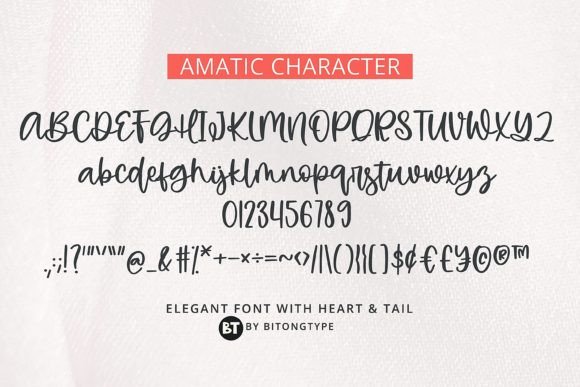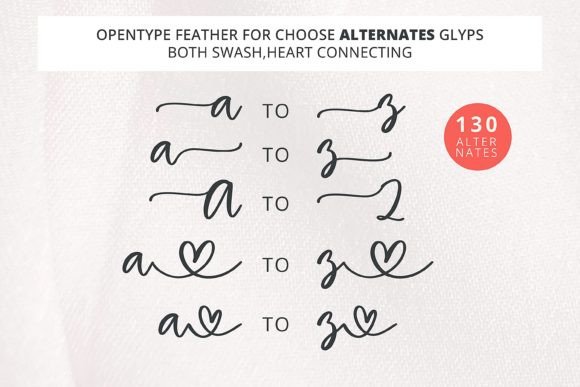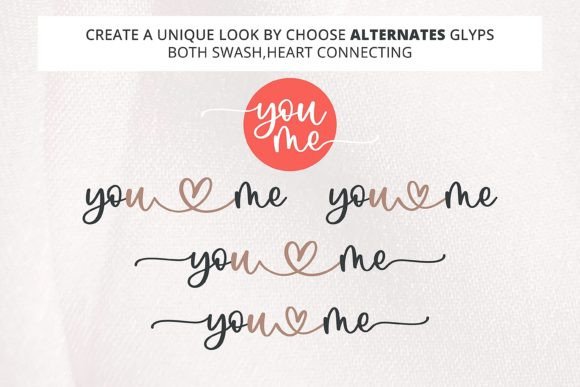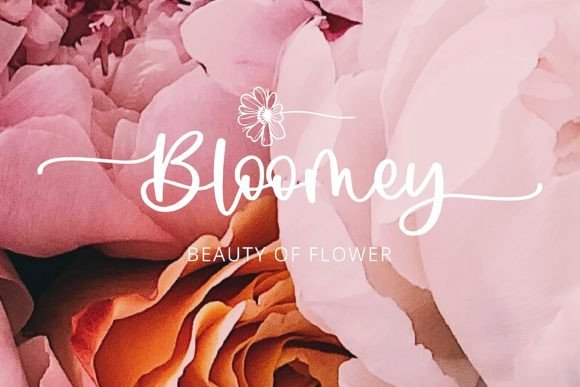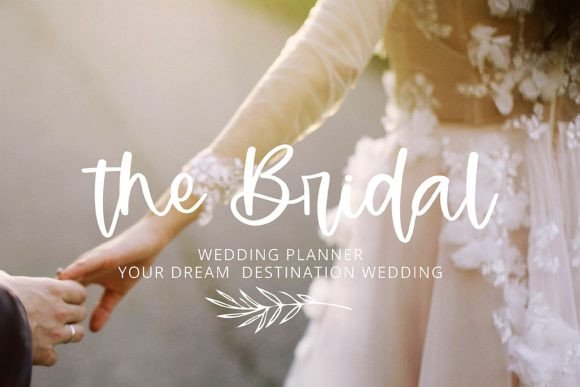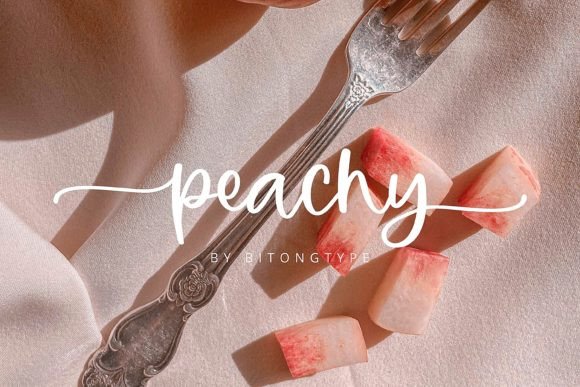
Unleashing Creativity with the Perfect Font
Do you remember that moment when you finally found the perfect font to bring your design project to life? For many of us, it’s a moment of pure joy and excitement, like stumbling upon a hidden treasure in a digital library. And for designers who are always on the lookout for the next big thing, we’re excited to introduce you to the Amatic Font – a gorgeous handwritten font that’s sure to captivate your audience.
The Amatic Font is a versatile and beautiful addition to any design project. Whether you’re creating wedding invitations, beautiful stationery art, or eye-catching social media posts, this font is sure to add a touch of elegance and sophistication. With its PUA encoded feature, accessing all the glyphs and swashes is a breeze, making it a valuable tool for designers who want to take their work to the next level.
Amatic Font Key Features
- Font Family: Amatic SC, Amatic LT
- Unique Characteristics: Handwritten, cursive, and script font with a vintage touch, ideal for creative and artistic designs
Designer Review: Amatic Font
Amatic font is a clean, high-quality, and elegant font that shines in ✨ readability. Its unique blend of modern and traditional elements creates a distinctive look that works well for various projects. Its legibility is excellent, making it perfect for large-scale headings and body text.
The font’s versatility and wide range of applications are significant advantages. It can be used in digital and print media, from book covers to signage, and even for web design. Amatic font also comes in multiple weights and styles, offering a lot of flexibility for designers.
- ✨ Excellent readability
- ✨ Unique blend of modern and traditional elements
- ✨ Wide range of applications
- ✨ Multiple weights and styles
- ⚠️ Limited expressiveness, may not be suitable for complex or creative projects
- ⚠️ May not be the best choice for projects requiring a bold or edgy look
Overall, Amatic font is a solid choice for designers looking for a clean, elegant, and readable font. While it may not be the best fit for every project, its versatility and high quality make it a great addition to any font collection.
Tips for Getting the Most Out of Amatic Font
Combine Amatic with bold and distressed textures for a vintage look. Use it for headings and titles to create a bold statement. Experiment with different font sizes and weights to create visual interest.
Amatic font is ideal for vintage-themed designs, such as posters, flyers, and invitations. It’s also great for creating a bold and eye-catching heading or title. Use it in conjunction with distressed textures and effects to create a unique and memorable design.